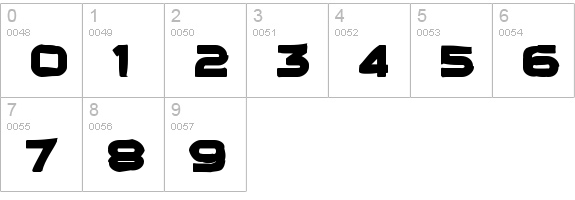
Sui Generis Ink Font Details
Sui Generis Ink font is a unique and eye-catching typeface that exudes creativity and originality. Its bold and expressive strokes give a handcrafted feel, making any design stand out with a touch of artistic flair. Perfect for adding a personal touch to your projects, whether it's for branding, packaging, or creative displays. What sets Sui Generis Ink font apart is its distinctive character and charm, making it a versatile choice for various design applications. The irregularity of the ink-inspired letterforms adds a touch of authenticity and individuality to any project. Best of all, Sui Generis Ink font is available for free download at FontsMarket.com. Simply visit the website to get your hands on this one-of-a-kind typeface and start incorporating its unique charm into your designs today. Let your creativity flow with Sui Generis Ink font and bring your vision to life with style and originality.